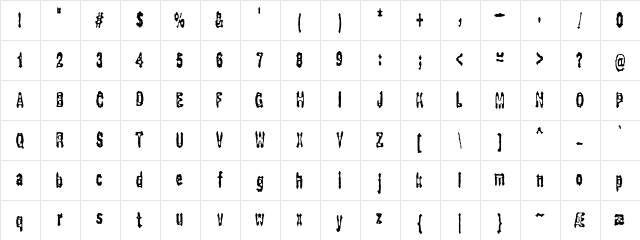
Gasping (BRK) Regular
Design Context for Gasping (BRK) Typeface
Gasping (BRK) is a composed and adaptable typeface that performs quietly and consistently across a wide range of design contexts.